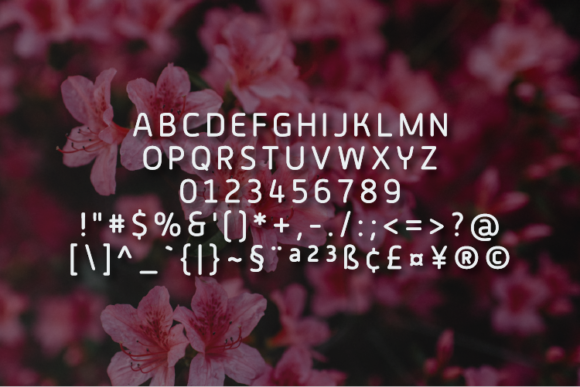
Discover the Simple Charm of Berna Font
Have you ever been brainstorming a new project, flipping through design inspiration boards, and suddenly, a font catches your eye? It’s clean, it’s simple, and it just feels right. For many designers, this moment of font discovery is a game-changer. And for those who’ve fallen for Berna Font, it’s a love affair that’s hard to shake.
Berna Font is a neat sans serif font designed to bring a touch of elegance to any project. Its clean lines and simple aesthetic make it the perfect fit for logos, branding, social media, and crafty DIY projects. Whether you’re a seasoned designer or a creative hobbyist, Berna Font is a valuable addition to your toolkit.
With its versatility and charm, Berna Font is a go-to choice for designers who value simplicity and sophistication. Whether you’re looking to elevate your personal brand or create a cohesive visual identity for your business, Berna Font is an excellent choice.
Berna Font Key Features
- Font Family: Berna Font is a sans-serif font family designed for digital use.
- Unique Characteristics: Features a clean, modern design with optimized letterforms for improved readability on digital screens.
Berna Font Review
I recently had the chance to work with Berna Font, and I must say it’s a decent addition to any design project. Here are my thoughts on what works well and what could be improved.
- Unique Character Set: Berna Font offers a unique character set that sets it apart from other fonts. It’s perfect for those looking for something distinct.
- Legibility: The font is highly legible, making it suitable for large blocks of text.
- Flexibility: Berna Font works well in both digital and print media.
- Lack of Consistency: Some characters may appear slightly different from others, which can create an inconsistent visual experience.
- Limited Stylistic Variations: Berna Font doesn’t offer many stylistic variations, which can make it feel a bit one-dimensional.
- Not Suitable for Small Text: Due to its bold and expressive nature, Berna Font may not be the best choice for small text sizes.
Berna Font is a solid choice for designers looking for a unique and highly legible font. While it has some limitations, it’s a great option for projects where you want to add a bit of flair to your design. With a bit of creative direction, Berna Font can help you create visually appealing and engaging content.
Berna Font Practical Application Guide
The Berna font is a versatile and modern sans-serif typeface. To use it in your design projects, follow these steps:
Tips for Getting the Most Out of Berna Font
For best results, use the Berna font in headings and titles, as it is designed to be attention-grabbing and modern. You can also pair it with other sans-serif fonts for a clean and minimalist look.
The Berna font is suitable for a wide range of designs, including:
- Website headers and footers
- Social media graphics and ads